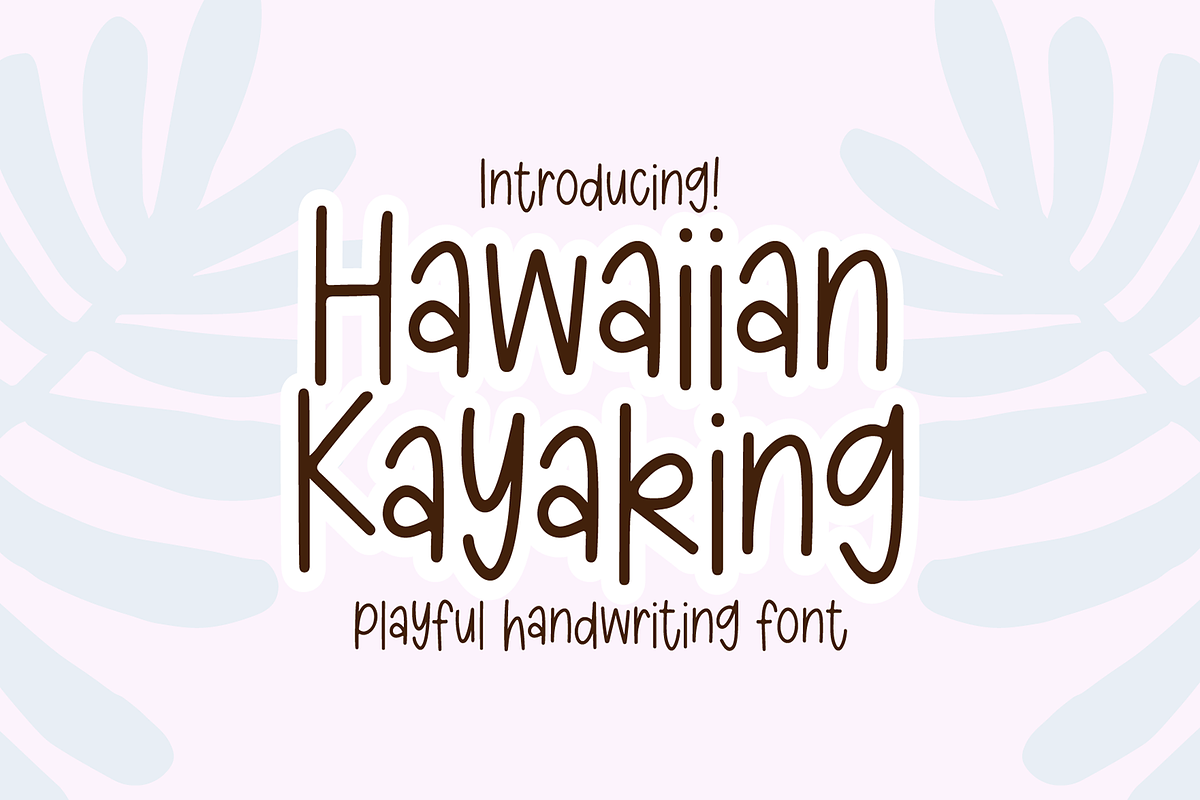
HAWAIIAN KAYAKING Handwriting Font Free Download
HAWAIIAN KAYAKING Handwriting Font Free Download is a fun, breezy typeface inspired by island life and handwritten adventure notes. With its casual, natural flow and playful vibe, this font is perfect for travel blogs, tropical event invitations, summer merchandise, beach-themed branding, and handwritten-style logos.
Its organic strokes and relaxed energy evoke feelings of freedom, exploration, and island spirit. Whether you're designing for a vacation rental, a surf brand, or a lifestyle blog, HAWAIIAN KAYAKING brings a friendly and approachable tone to your typography.